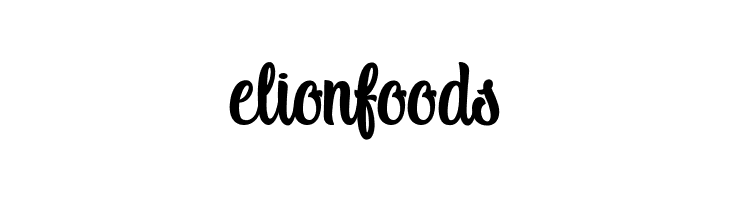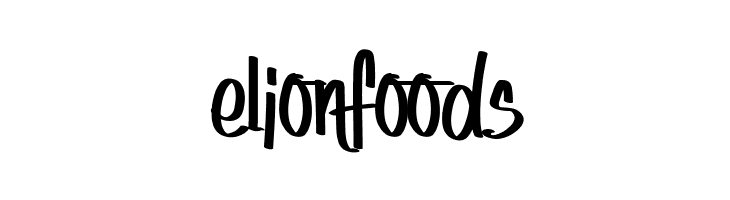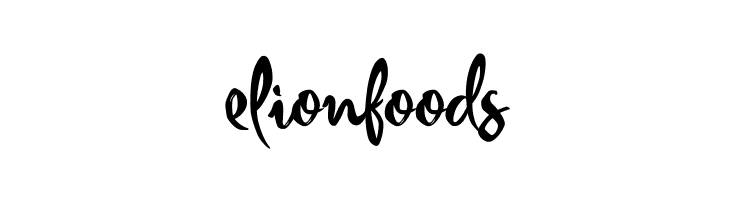
( Typhoon Type - Suthi Srisopha - www.typhoontype.net )
A decorative script font with elegant, flowing lines and calligraphic flourishes.
( Typhoon Type - Suthi Srisopha - www.typhoontype.net )
A playful, handwritten script font with bold, expressive characters.
( Typhoon Type - Suthi Srisopha - www.typhoontype.net )
A dynamic, expressive handwritten font with fluid strokes and a playful aesthetic.
( Typhoon Type - Suthi Srisopha - www.typhoontype.net )
An elegant script font with flowing cursive letters and intricate swashes.
( Typhoon Type - Suthi Srisopha - www.typhoontype.net )
A bold, expressive script font with a hand-drawn calligraphic style.
( Typhoon Type - Suthi Srisopha - www.typhoontype.net )
A lively script font with elegant flourishes and smooth, continuous strokes.
( Typhoon Type - Suthi Srisopha - www.typhoontype.net )
An elegant and flowing script font with classic cursive letterforms.
( Typhoon Type - Suthi Srisopha - www.typhoontype.net )
A bold, expressive script font with elegant flourishes and a handwritten feel.
( Typhoon Type - Suthi Srisopha - www.typhoontype.net )
An elegant and ornate script font with intricate swirls and flourishes.
( Typhoon Type - Suthi Srisopha - www.typhoontype.net )
A flowing, cursive script font with elegant loops and swashes.